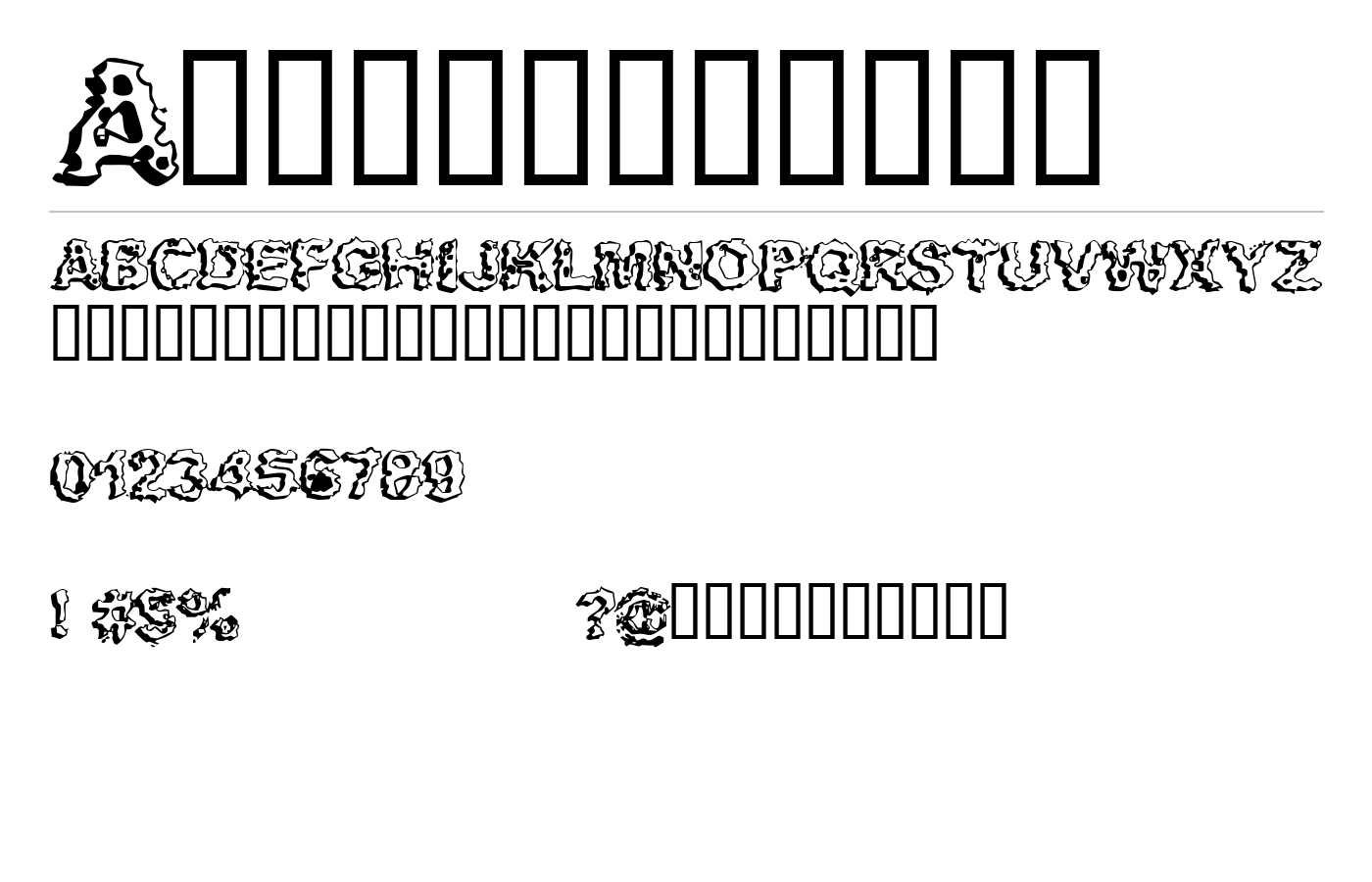
Apocalypshit is a bold, decorative display font with a distressed, eroded style that evokes a rugged, apocalyptic mood. Its uppercase letters and numbers have irregular, jagged edges that give a sense of decay or destruction, making it ideal for edgy, horror, or post-apocalyptic themed designs. This font works best for impactful headlines, posters, logos, and packaging that need a raw, gritty atmosphere rather than for body text or subtle use.